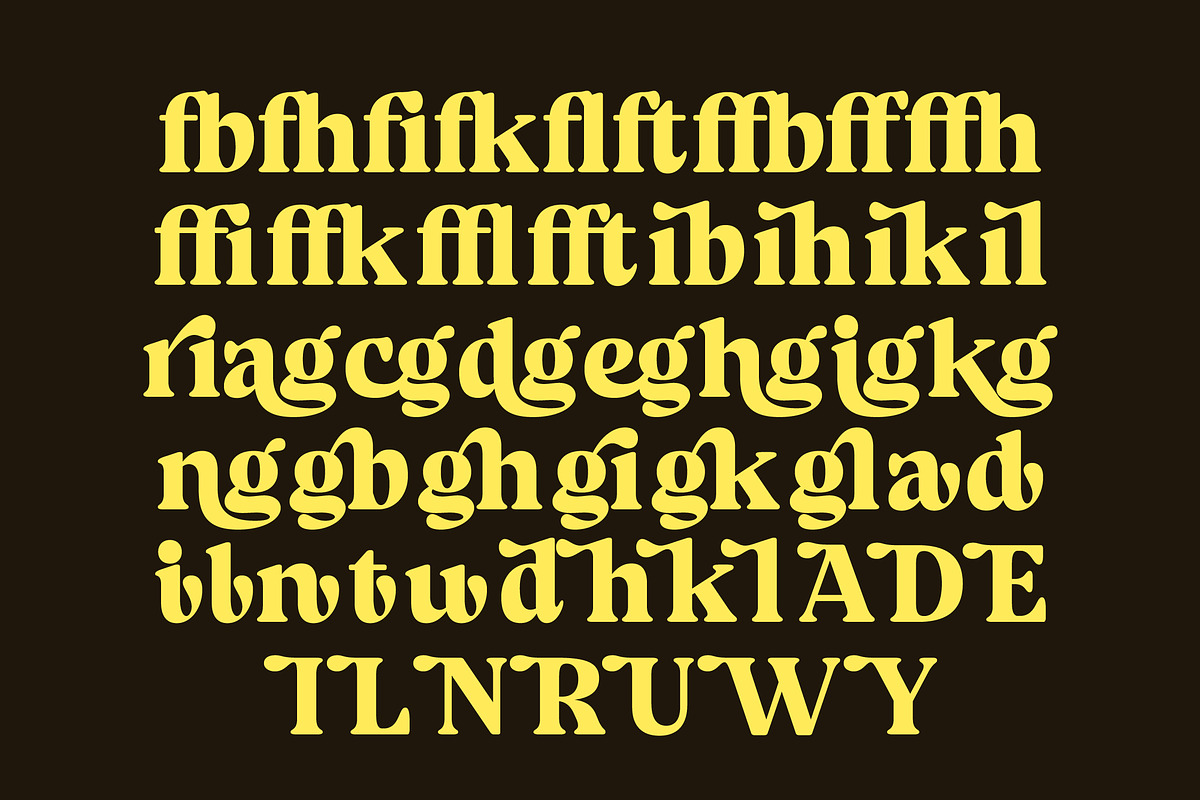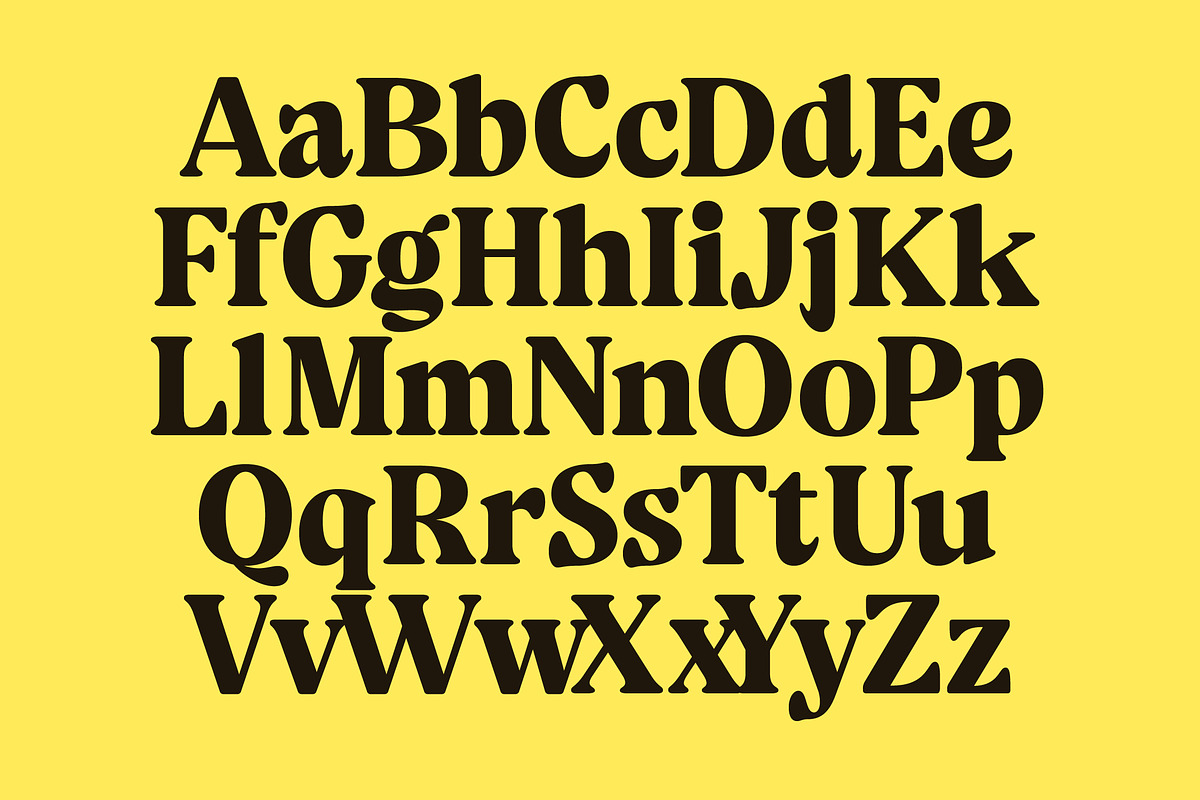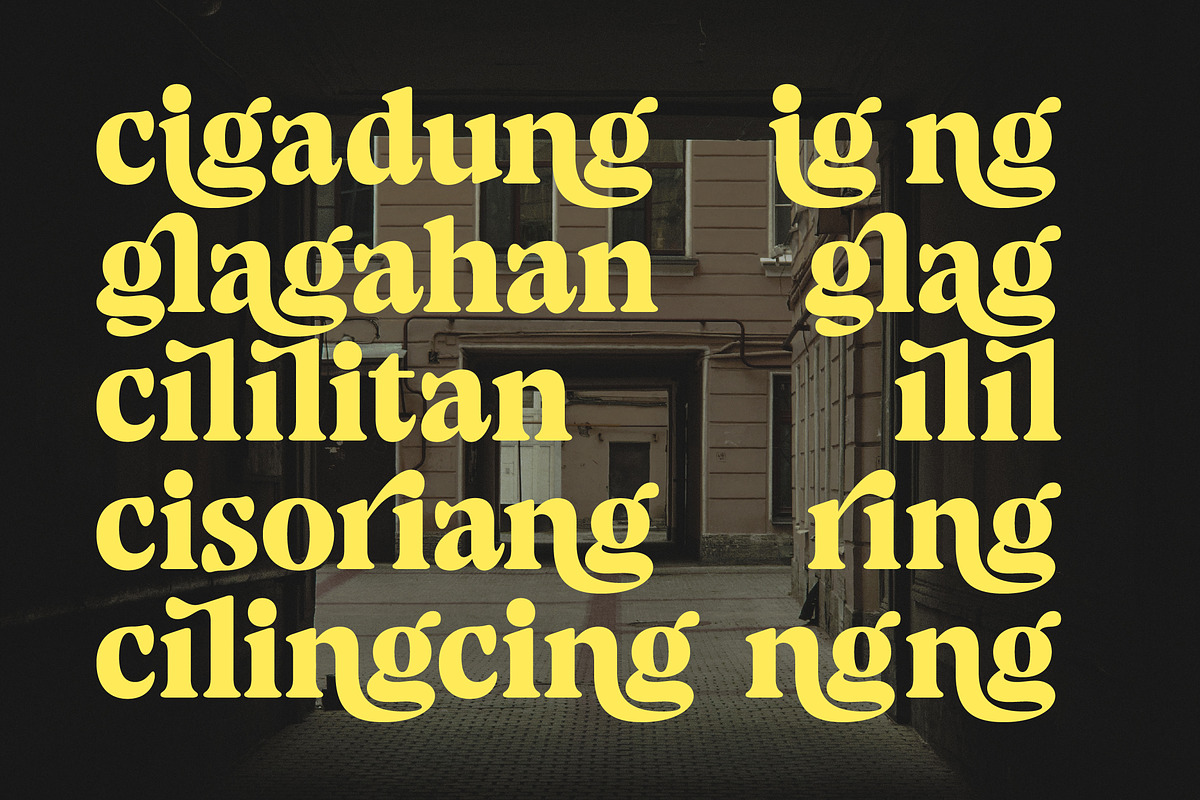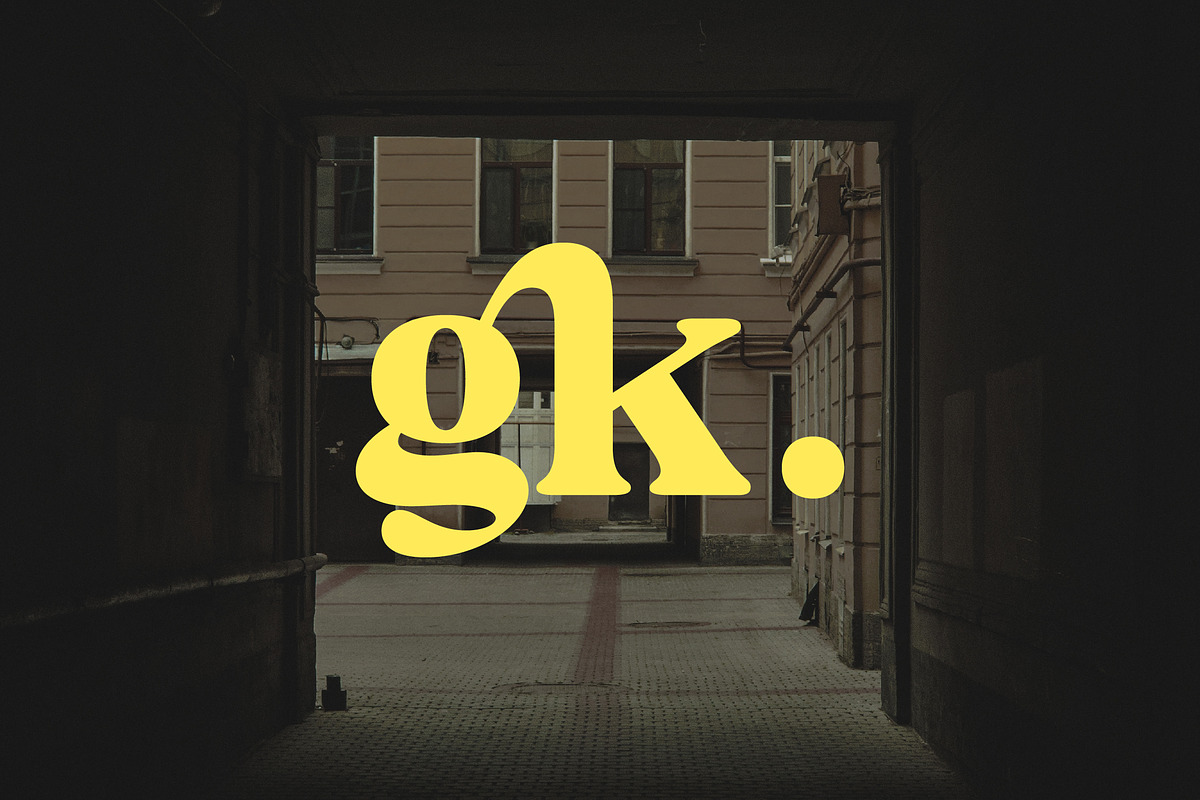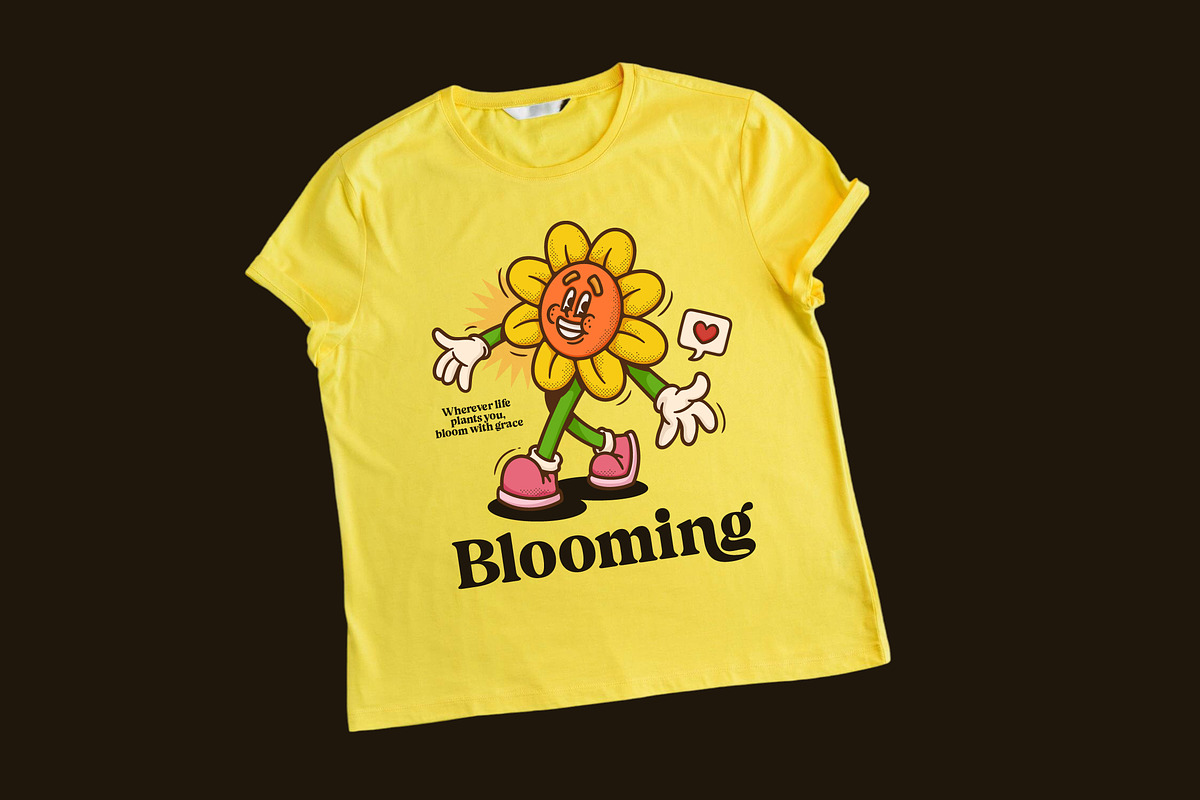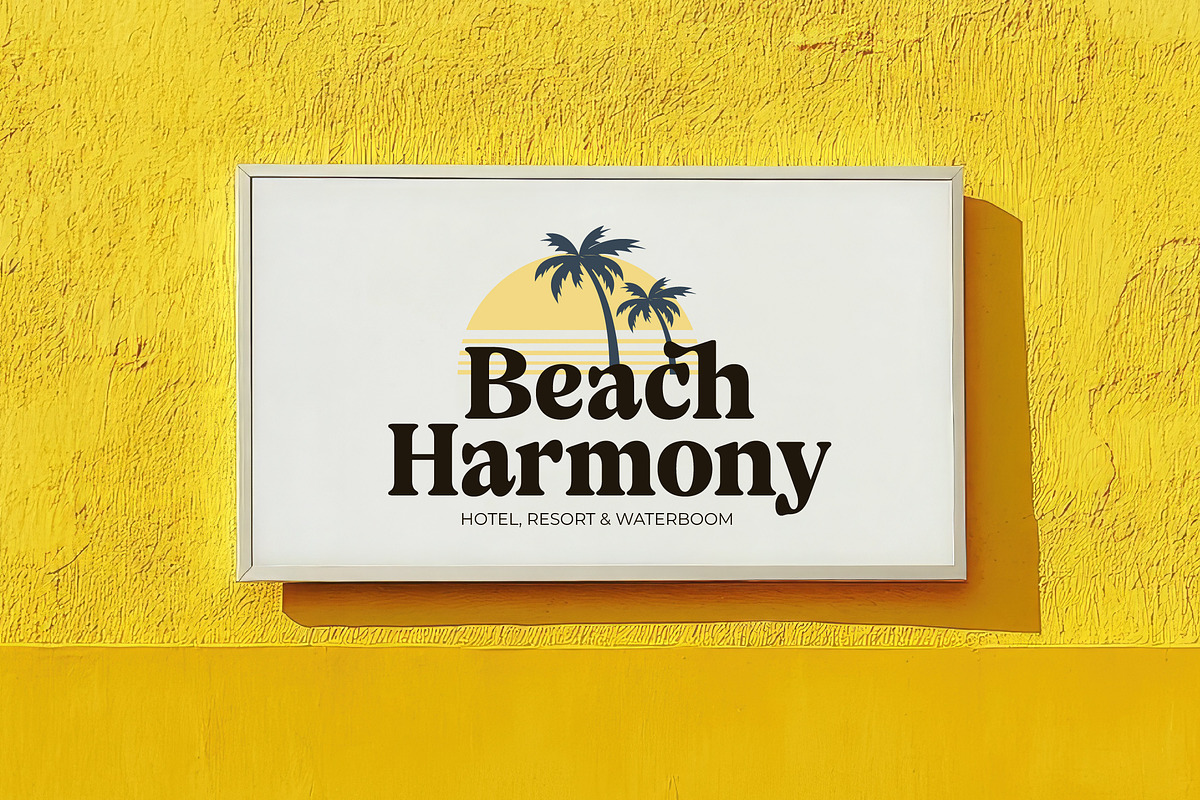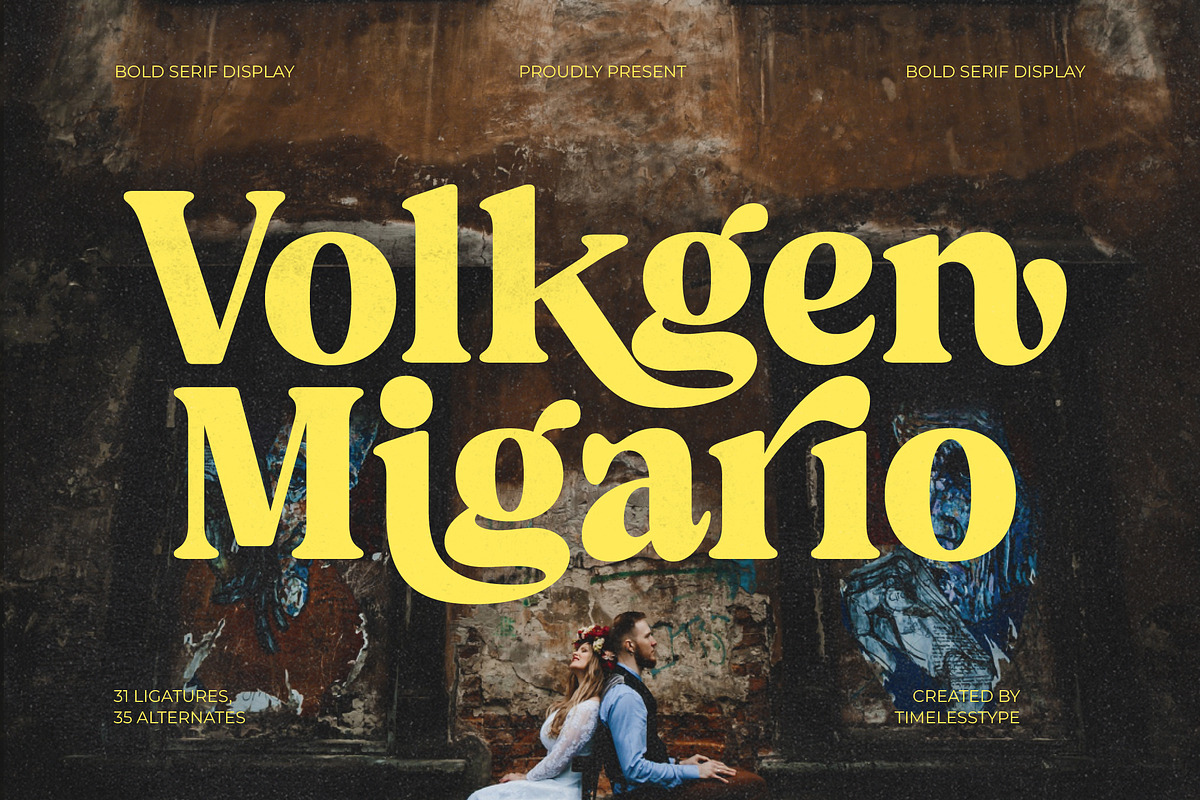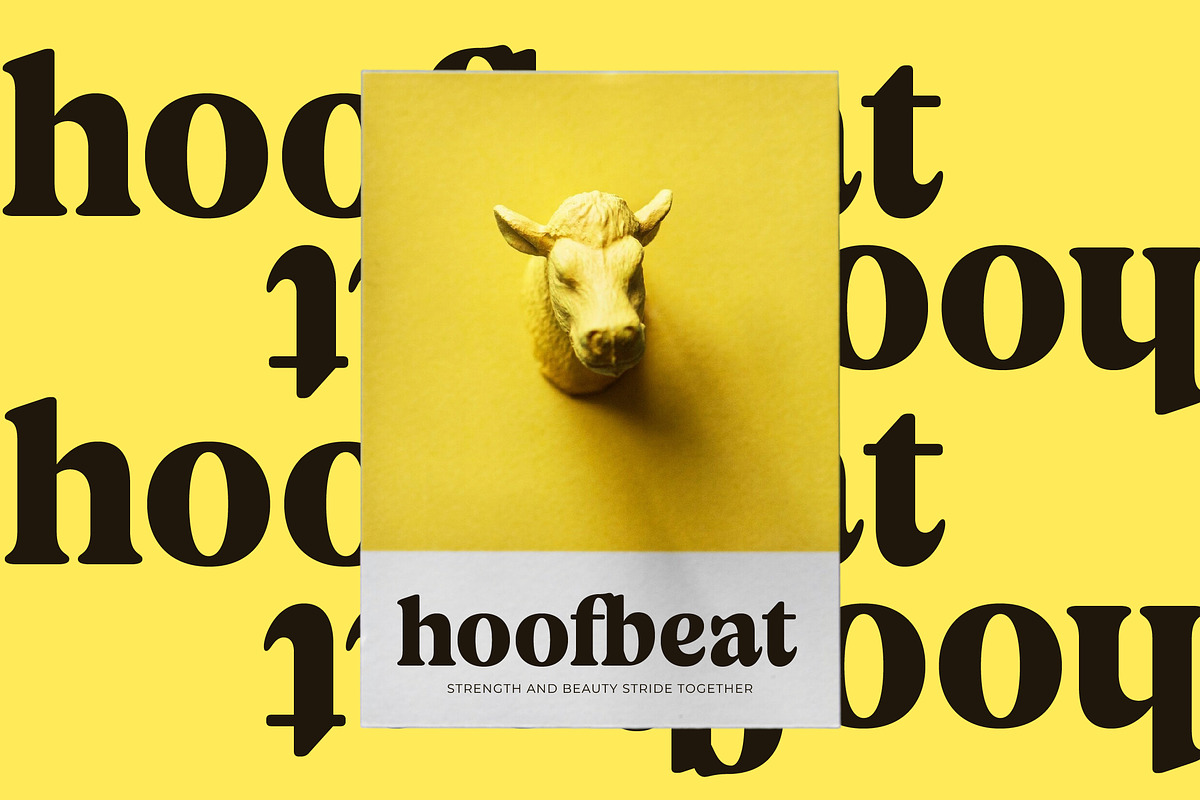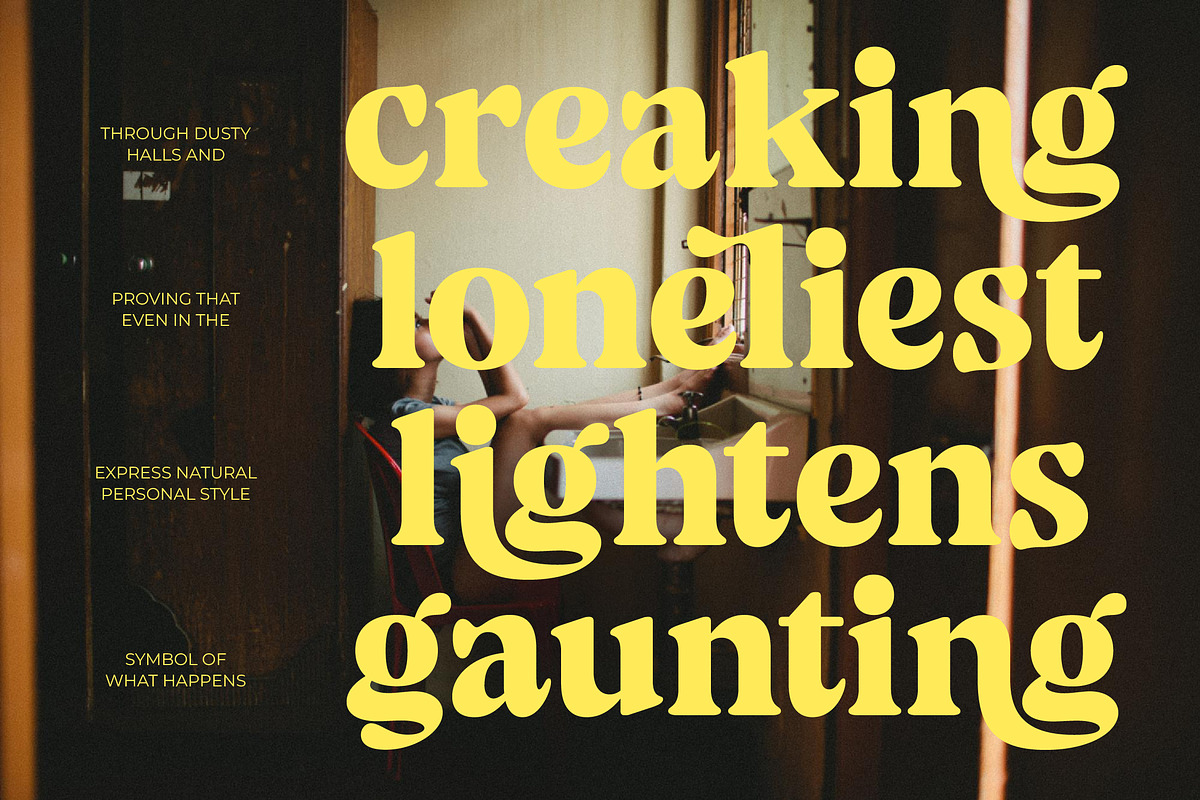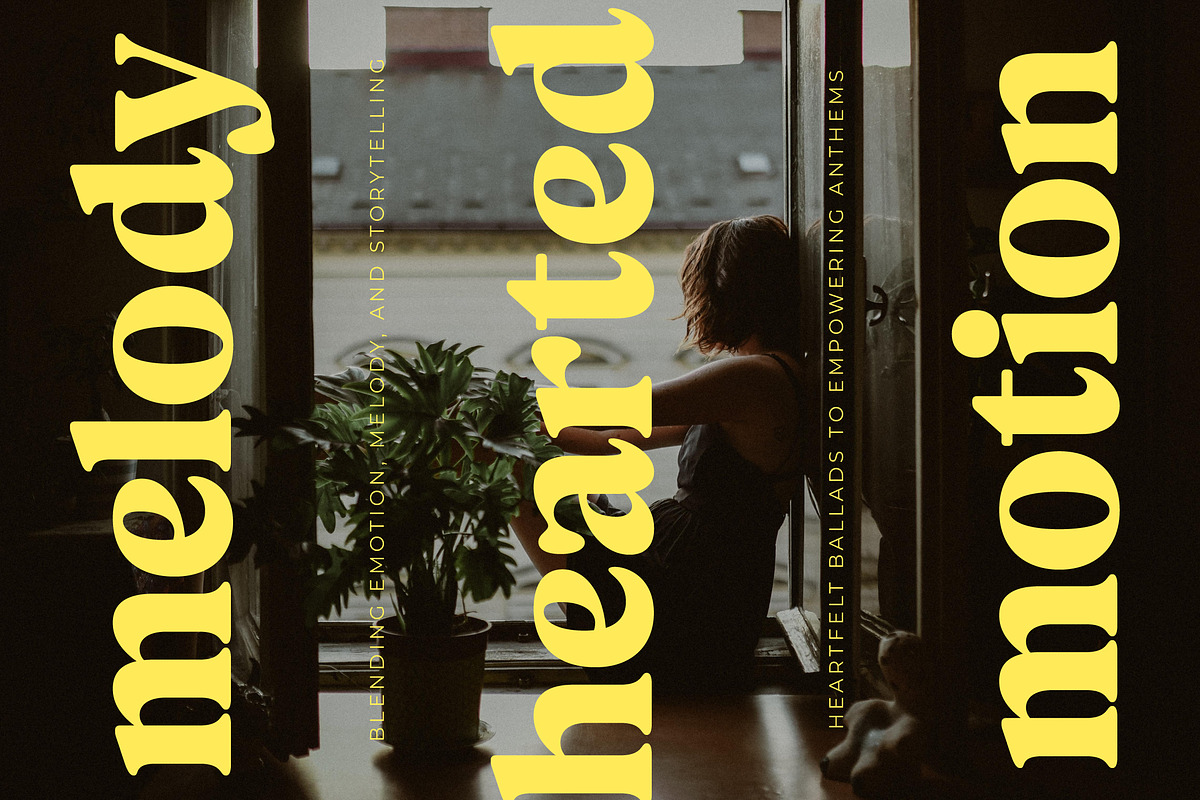
Volkgen Bold Modern Display Serif
The Volkgen typeface is a masterclass in sophisticated design, blending timeless elegance with a bold contemporary edge that demands immediate attention. This typeface serves as a poetic bridge between classic serif traditions and the daring spirit of modern aesthetics.
Inspired by the golden era of editorial design and the organic flow of nature, this font captures a unique sense of movement through its fluid curves and sharp serifs. It evokes an atmosphere of high-end galleries and sun-drenched European boutiques, offering a visual narrative that is both nostalgic and forward-thinking.
The core of its appeal lies in its striking modern serif display qualities and the sheer luxury typography it provides for any creative layout. With a distinct high-contrast serif construction, it delivers a powerful branding impact while maintaining the refined grace of a premium editorial font.
Tapping into the current modern serif trend, this typeface is perfectly positioned for designers seeking character-driven typography that breaks away from the mundane. It aligns with the shift toward editorial display fonts that prioritize personality and expressive ligatures over standard geometric shapes.
This versatile typeface is the ideal choice for high-end logo design, sophisticated branding projects, and elevated editorial layouts that require a touch of class. Its romantic undertones make it perfect for wedding invitations, luxury fashion lookbooks, and artisanal packaging that needs a memorable identity.
To ensure maximum creative flexibility, the package includes an extensive library of ligatures and unique alternates that allow for custom-tailored lettering. It also boasts comprehensive multilingual support with a wide array of international characters to cater to global design needs.